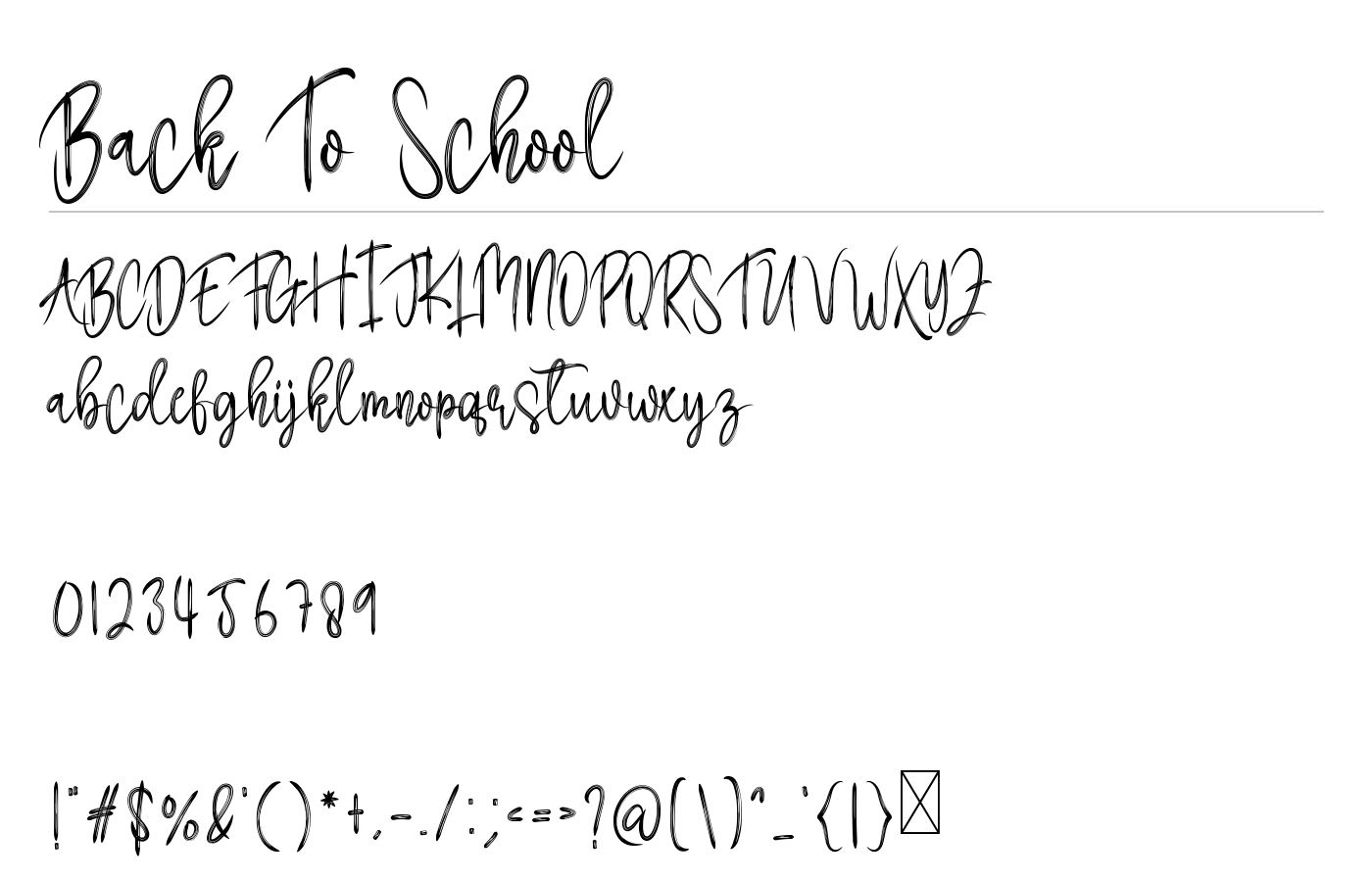
Back To School is a playful and casual script font with a handwritten feel, characterized by its tall, narrow letterforms and lively, slightly irregular strokes. Its light weight and dynamic flow give it an approachable, friendly personality, making it ideal for creative projects that need a personal touch, such as invitations, branding for youth-focused products, and informal headlines. This font works best where a warm, energetic vibe is desired, adding charm and character without sacrificing readability.
Back To School Font
About Back To School Font